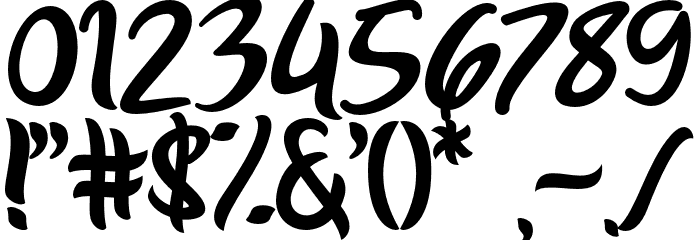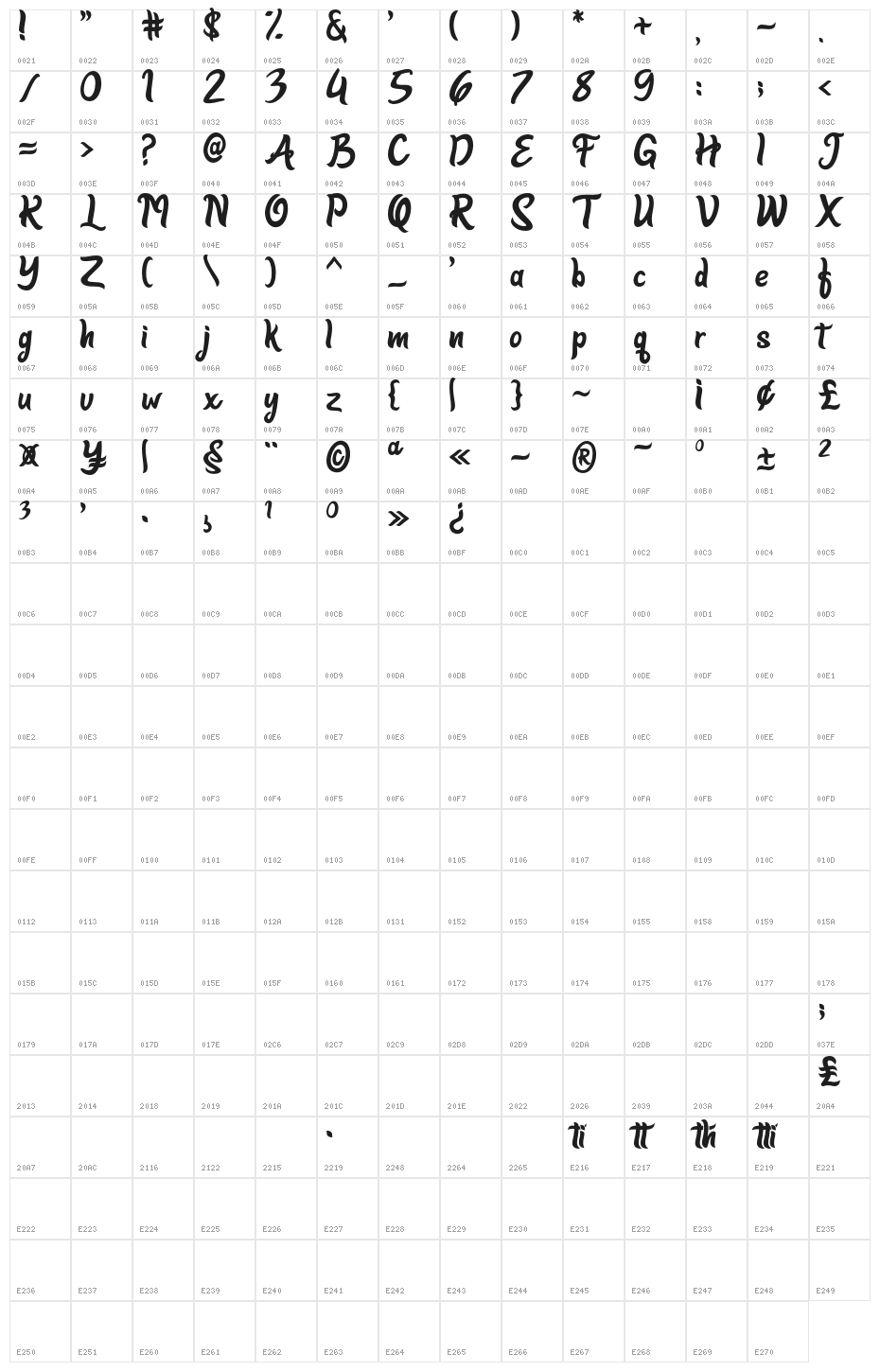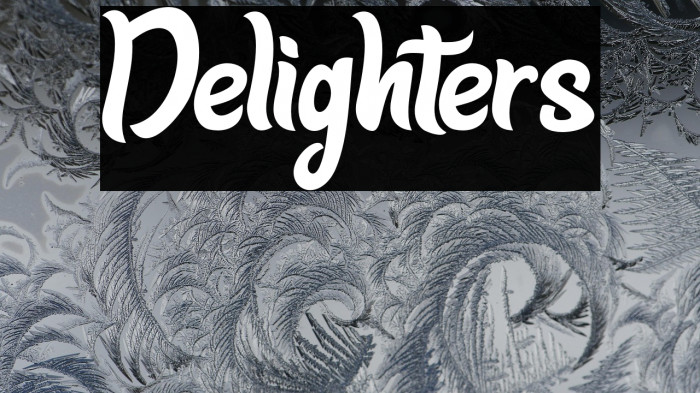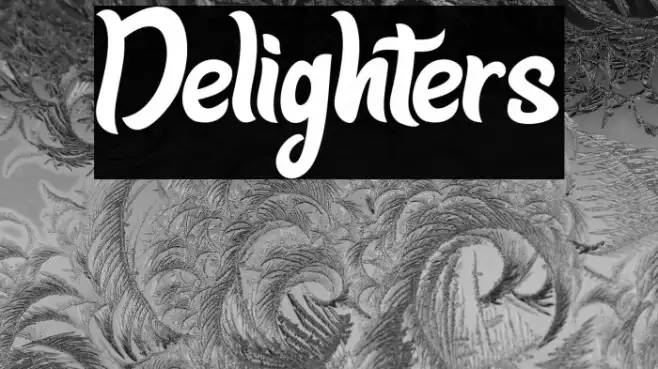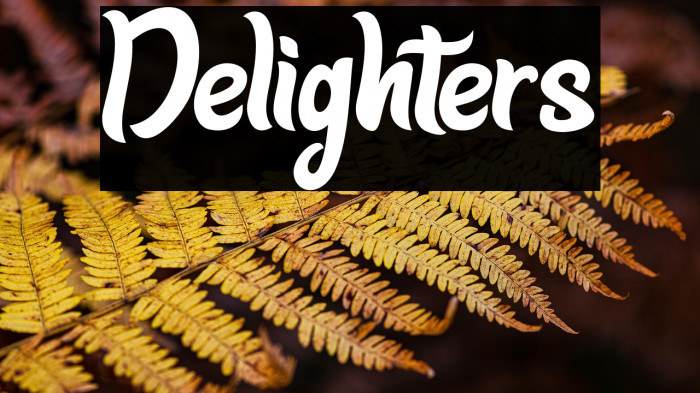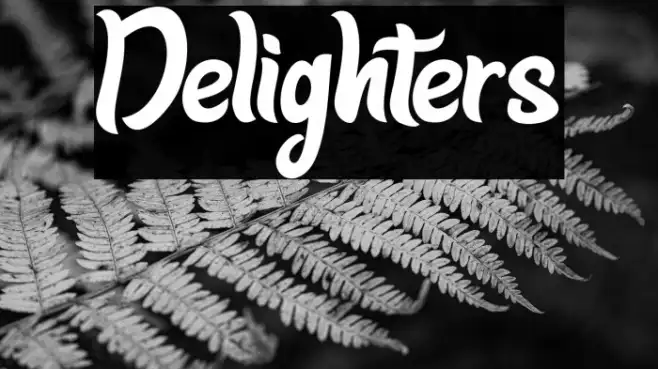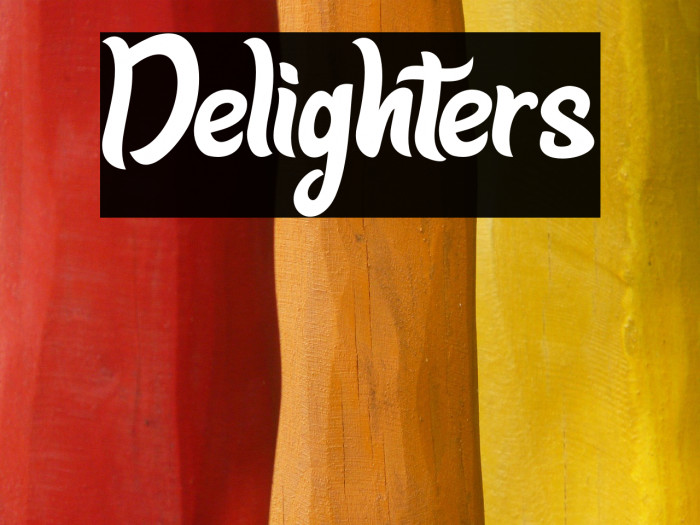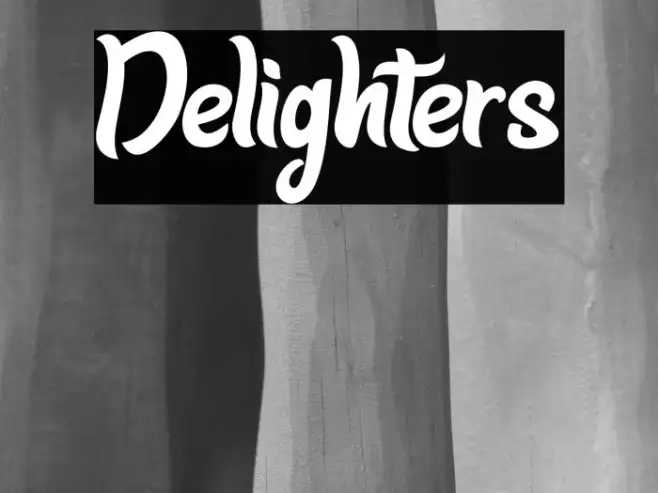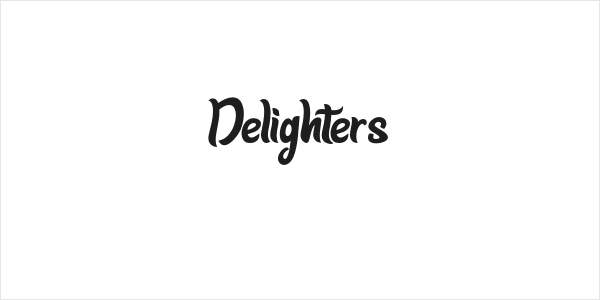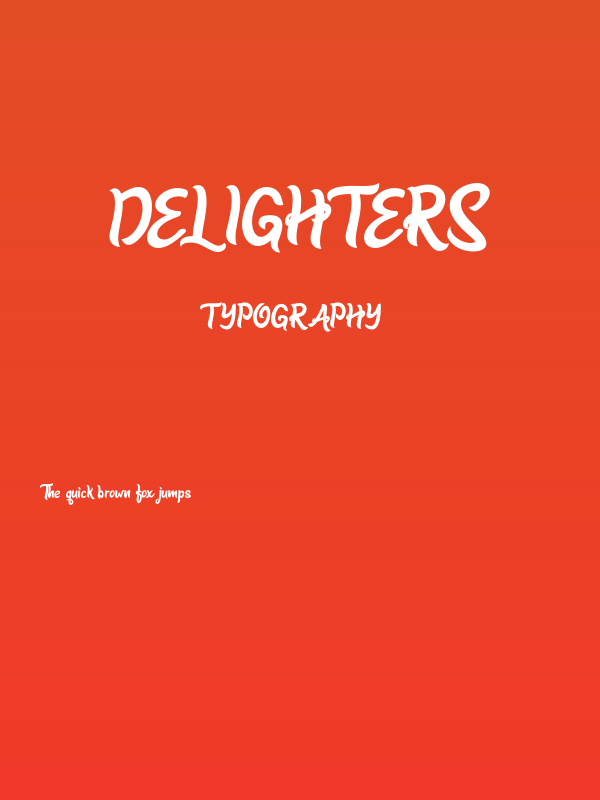
Delighters Font
Delighters Description
This font features a bold and dynamic script style, characterized by its flowing, cursive letters that exude a sense of movement and energy. The uppercase letters are slightly more structured, while the lowercase letters maintain a playful and informal appearance. The numbers and special characters are consistent with the overall style, offering a cohesive look. The strokes are thick and rounded, providing a sense of boldness and confidence. This font is ideal for projects that require a touch of personality and flair, such as branding, posters, or creative invitations.
| Proposed Projects | Branding, posters, creative invitations, and any project needing a playful, energetic touch. |